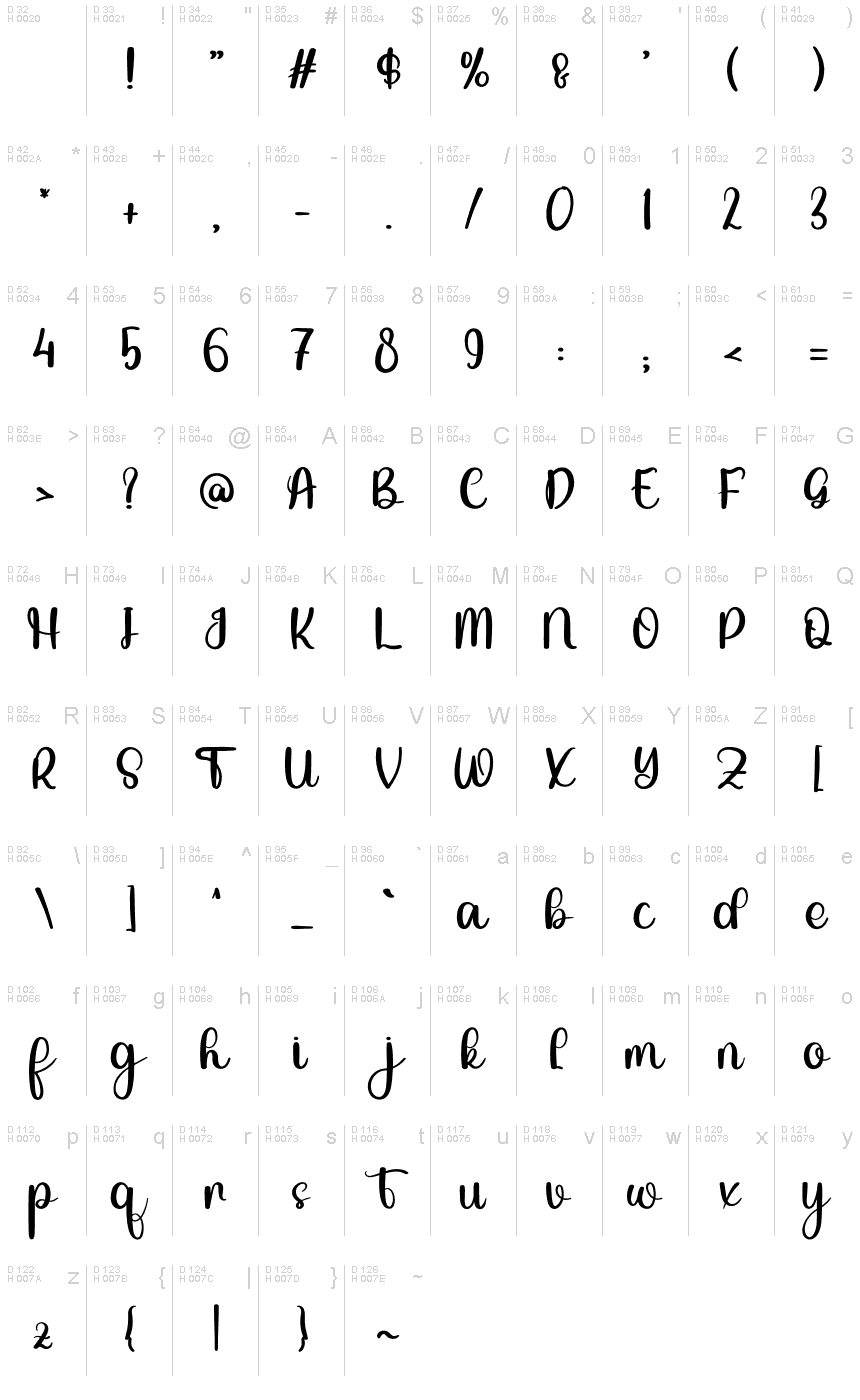
Vintage
Vintage is a stylish handwritten font designed by Inermedia Studio. Perfect for projects that require a classic, rustic feel, this font is an ideal choice for invitations, logos, posters, and more.